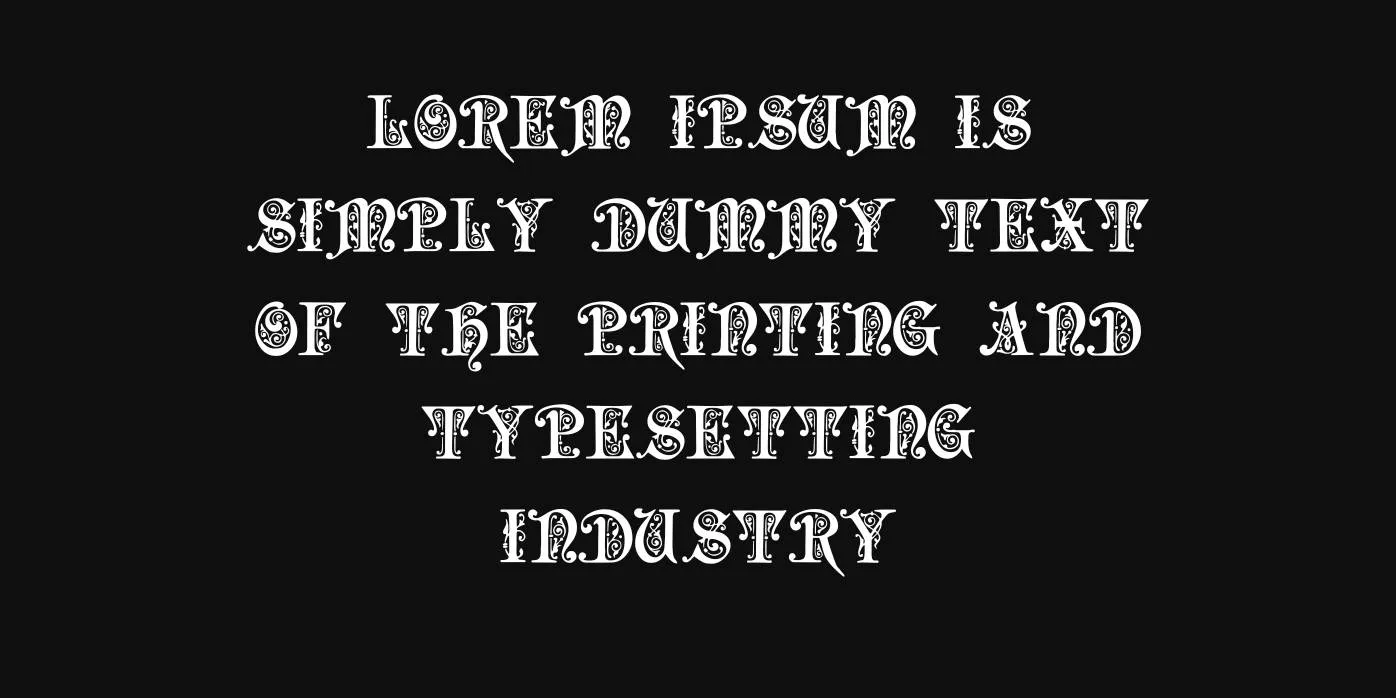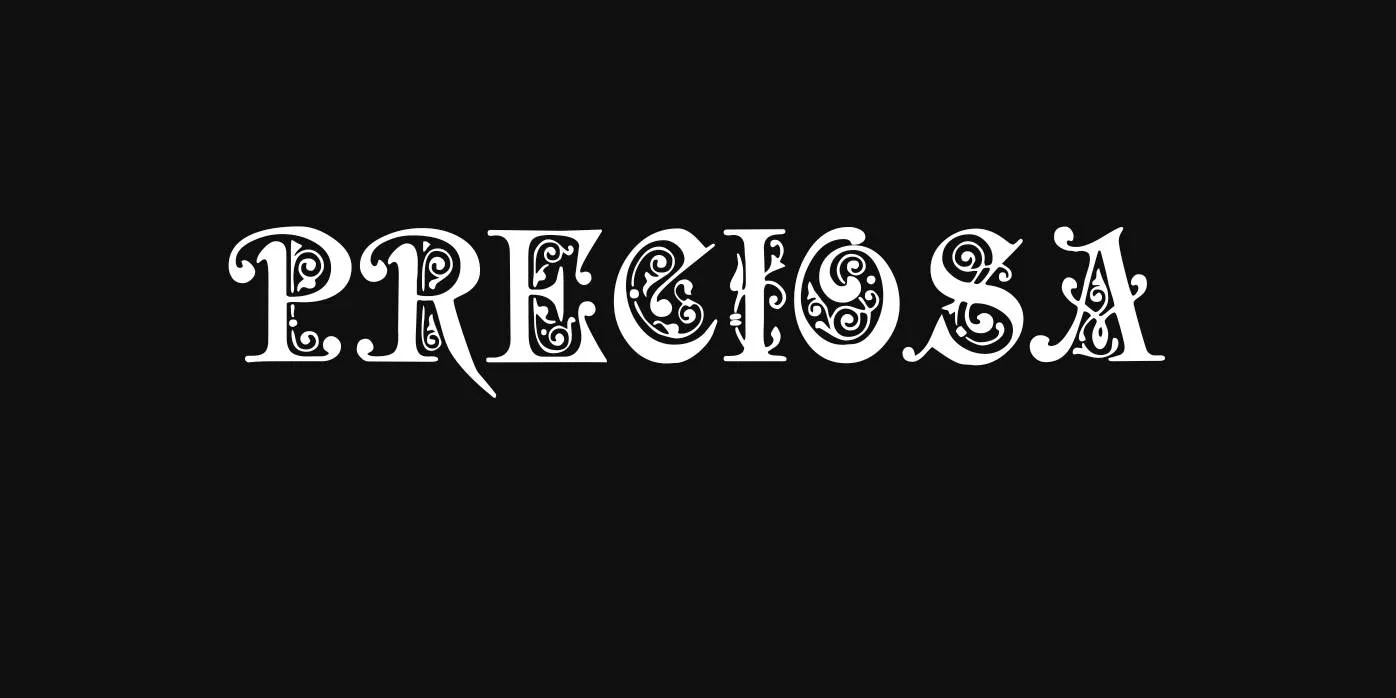
Preciosa Font
Introducing you to a fancy font named Preciosa Font. The Listemageren designs this texture. The characters of this texture are bold and readable with attractive decoration. There are over 200000 fonts in this world and a lot of choices are present for the purpose of pairing with this font.
But I suggest the tome of the unknown font for the pairing with this texture. You have a lot of other choices for pairing with this texture. The characters of this texture are amazing because they are decorative, and attention-grabbing. Moreover, this texture supports CSS, Canva, Photoshop, Adobe Illustrator, Autocad, Microsoft Excel, MS Word, and many other useful tools.